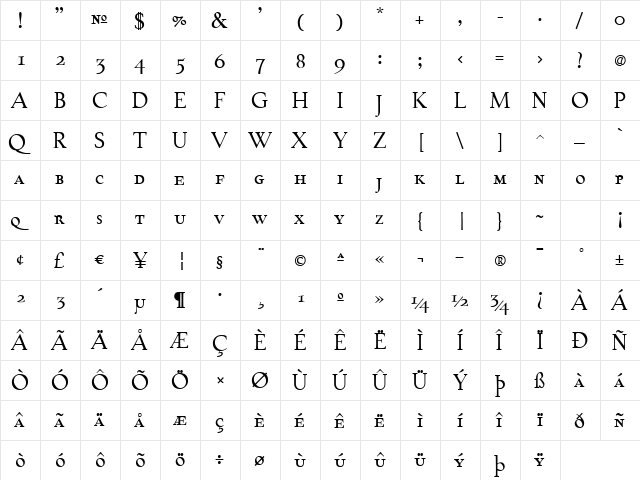
TaskSmall Caps Regular Font Preview
TaskSmall Caps Regular
TaskSmall Caps Regular Font Details
Design Context for TaskSmall Caps Typeface
TaskSmall Caps is a composed and adaptable typeface that performs quietly and consistently across a wide range of design contexts.